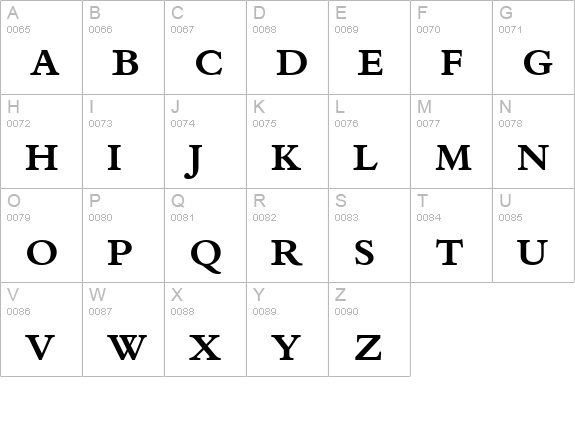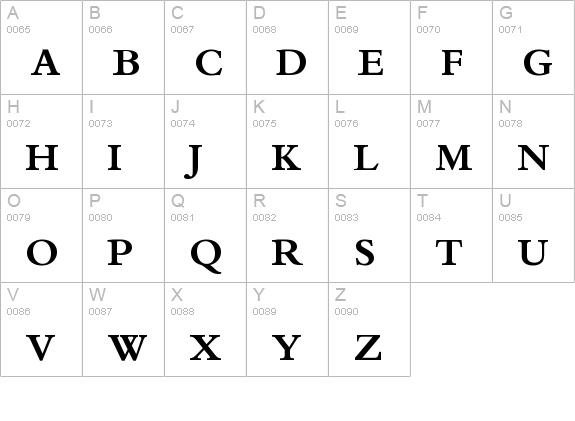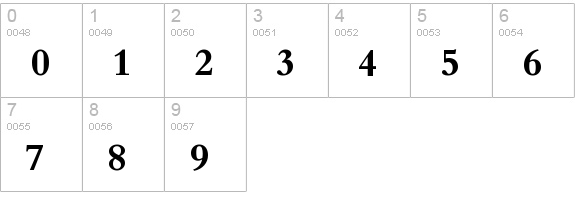
Kuriakos Black SSi Bold is a maximum-weight, dramatic variant in the Kuriakos typeface family \xE2\x80\x94 well suited to maximum-impact headlines, posters, and packaging.
Kuriakos Black SSi Bold font is a striking and versatile typeface that exudes a sense of modernity and sophistication. Its bold and robust letterforms make it perfect for creating eye-catching headlines, signage, and branding materials. This font is designed with a contemporary touch while also maintaining a timeless appeal, making it suitable for a wide range of design projects. Whether you're working on a poster, logo, website, or any other creative endeavor, Kuriakos Black SSi Bold font is sure to make a bold statement. What's even better is that this stylish font is available for free download at FontsMarket.com. So, you can easily add this premium-quality typeface to your collection without any cost. Don't miss out on the opportunity to enhance your designs with the elegance and flair of Kuriakos Black SSi Bold font.